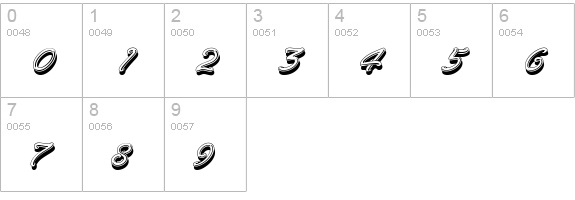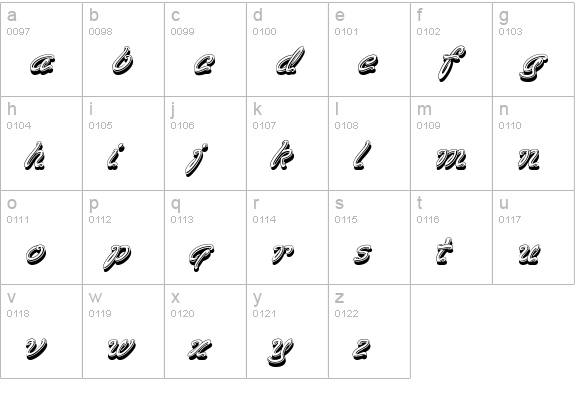
VegasICG Font Details
VegasICG font is a stunning typeface that exudes a perfect blend of elegance and creativity. Its unique design captures the essence of the vibrant Vegas cityscape, with its dazzling lights and energetic atmosphere. This font is perfect for projects that require a touch of excitement and sophistication. What makes VegasICG font even more appealing is that it is available for free download at FontsMarket.com. This means that you can easily enhance your designs without spending a dime. Whether you're a graphic designer, a blogger, or a creative enthusiast, VegasICG font is a valuable addition to your font collection. With its sleek and modern letterforms, VegasICG font can effortlessly elevate any design project. From eye-catching logos to impactful headlines, this font commands attention and leaves a lasting impression. Its clean lines and stylish curves make it versatile and suitable for various design styles, from minimalistic to bold and dramatic. Not only does VegasICG font offer aesthetic appeal, but it also ensures readability and legibility. Each character has been meticulously crafted to ensure clarity, even in small sizes. This makes it an excellent choice for both print and digital media, including websites, magazines, posters, and more. So, why wait? Unlock your creativity and download VegasICG font for free at FontsMarket.com today. Embark on a design journey that will captivate your audience and make your projects truly unforgettable. With VegasICG font, the possibilities are limitless, and the results are bound to be extraordinary.